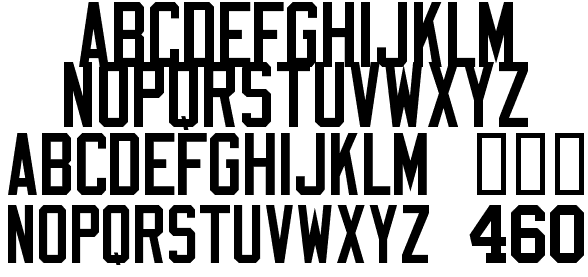
Hey friends! Are you in search of a versatile font that can be used in a variety of places? Look no further than Varsity Block A regular Font. This font includes four different styles: Regular, Bold, Italic, and Ultra Black.
It has an amazing appearance that looks like athelas font and an exceptionally readable texture. Featuring this much variety of textual arrangements and sharp qualities this free typeface has got much popularity in a couple of times.